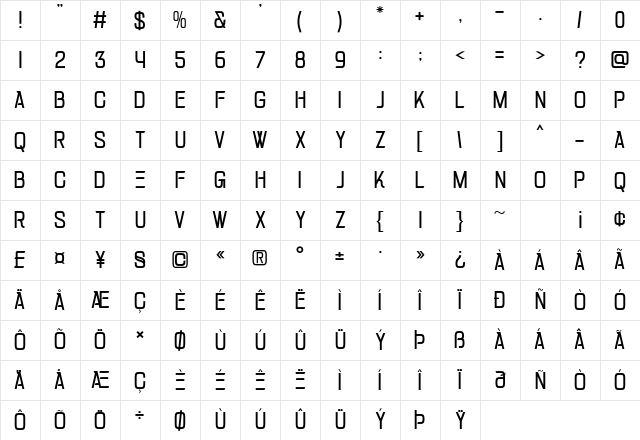
Complete Race Track Regular glyph index. Displaying only characters natively supported by Race Track Regular font.
Race Track is a composed and adaptable typeface that performs quietly and consistently across a wide range of design contexts.